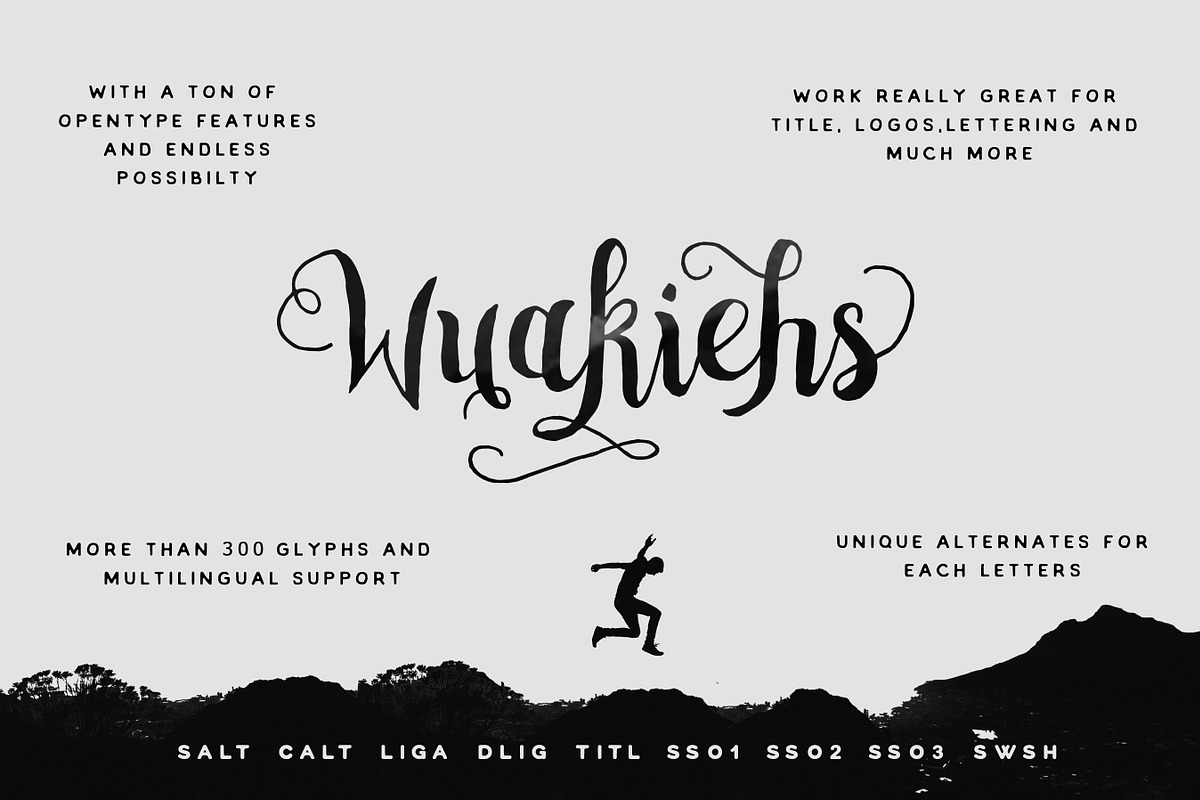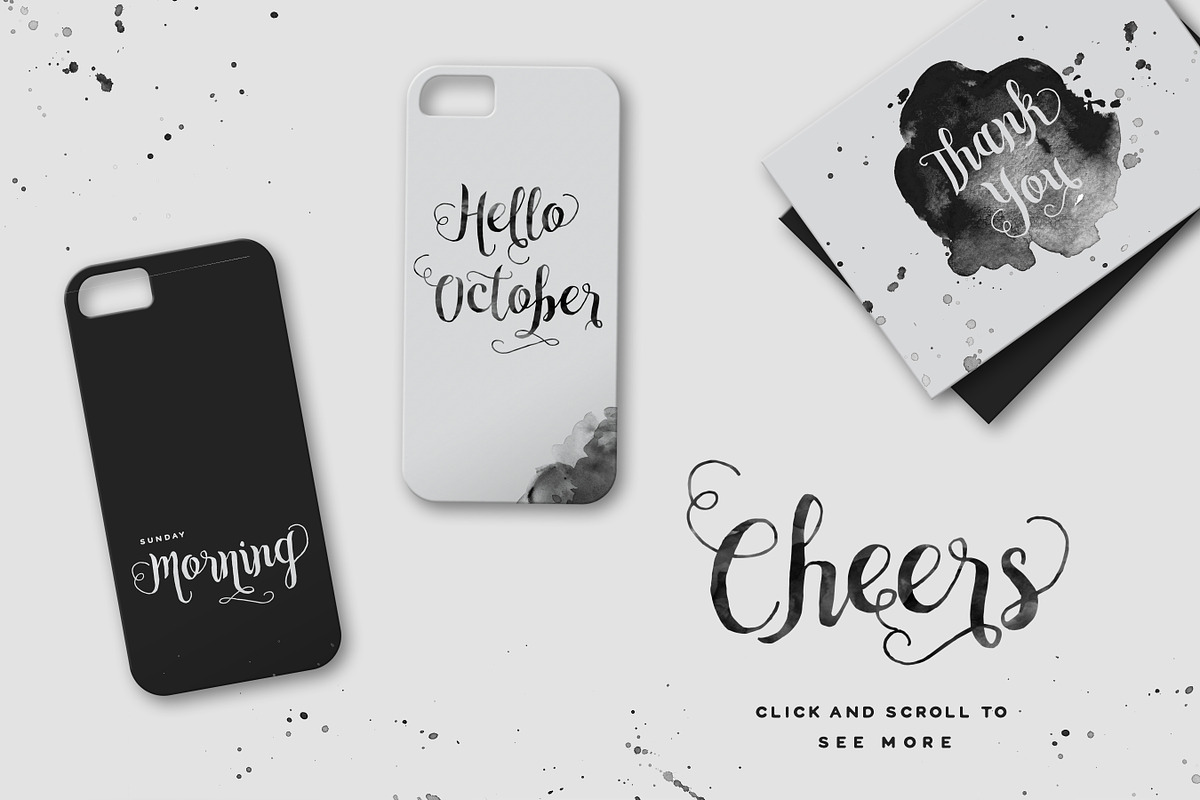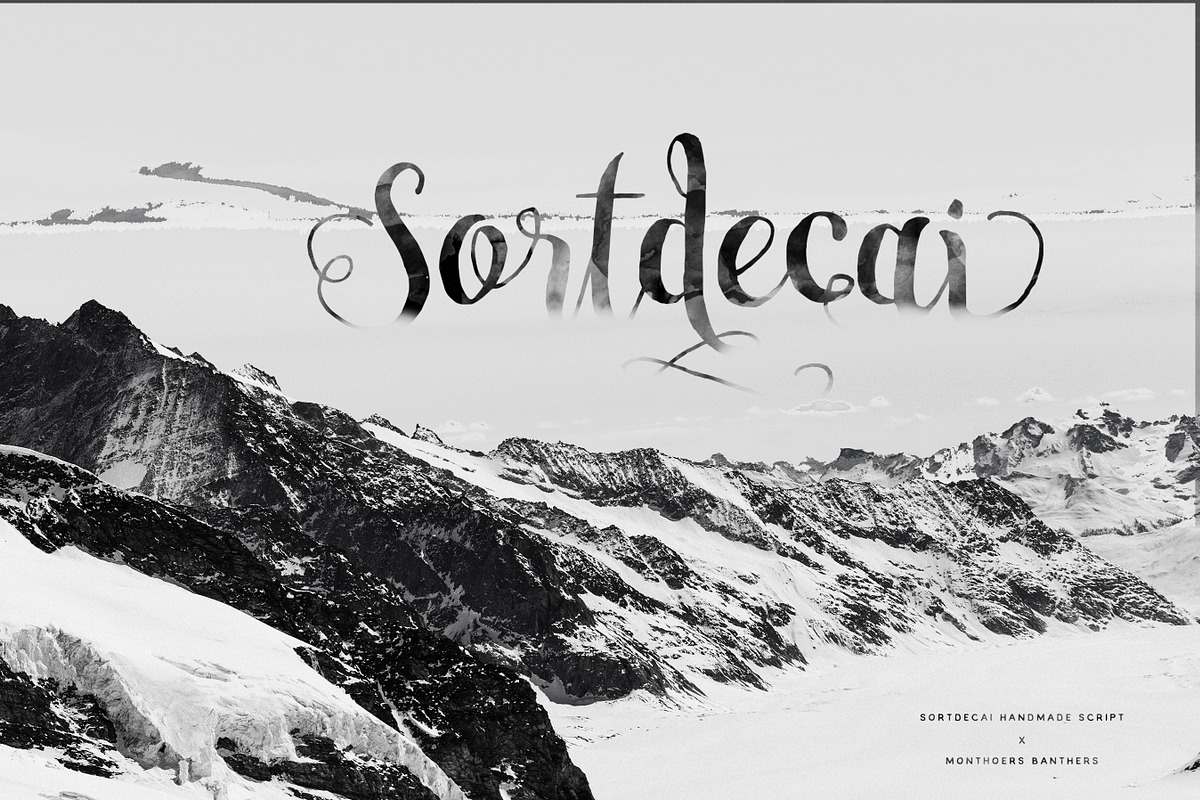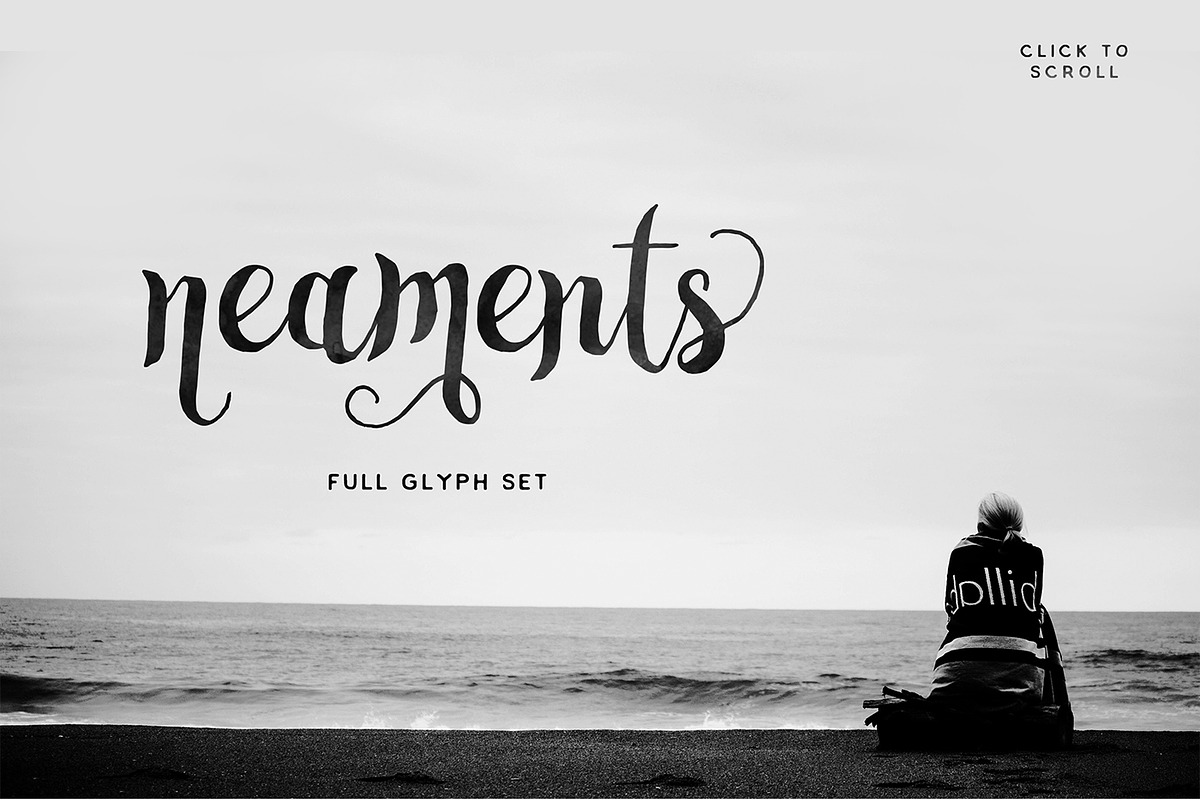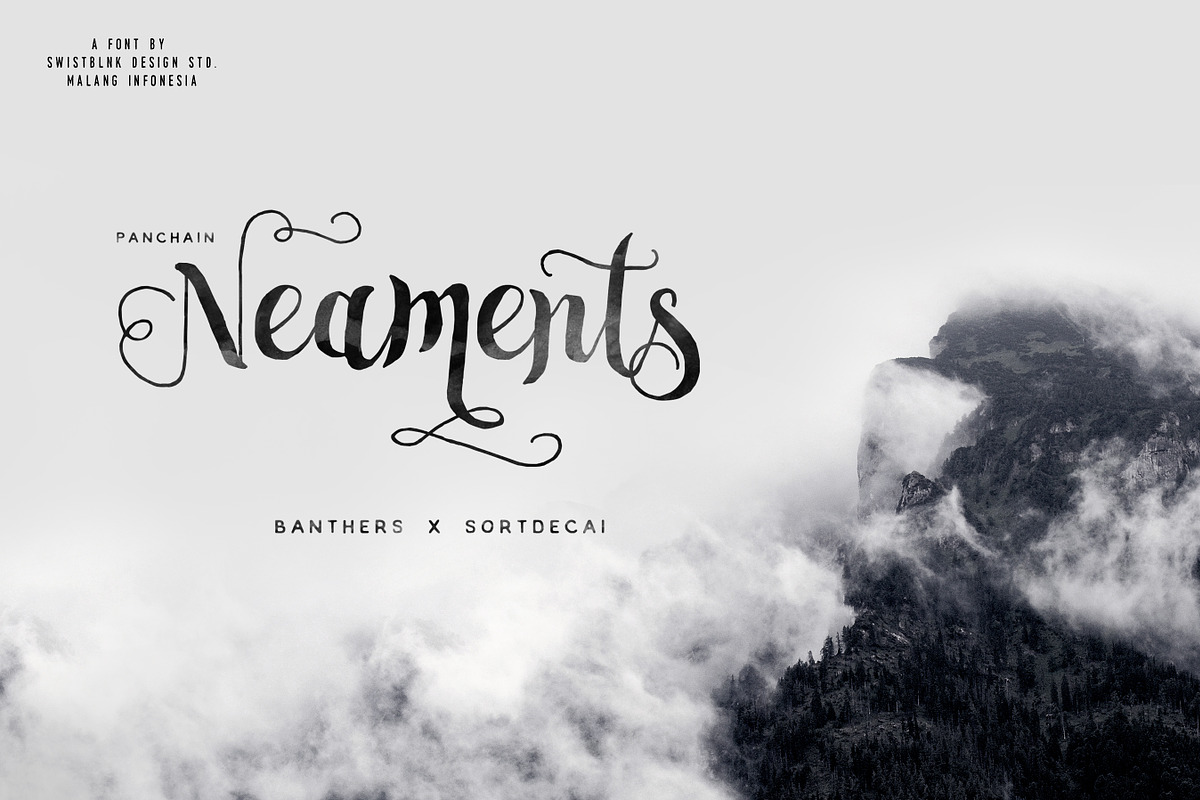
Neaments Typeface
Neaments Typeface by Swistblnk Std. is a font selected for branding, posters, packaging, typography.
Why Neaments Typeface is worth a look
Neaments Typeface by Swistblnk Std. fits naturally into Branding, posters, packaging, typography.